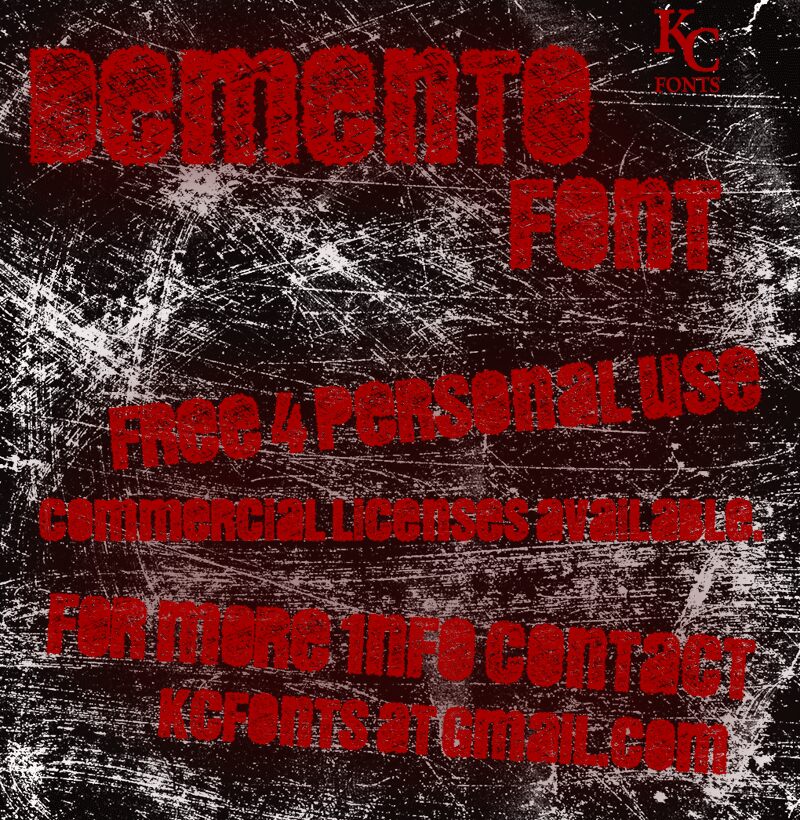
Demento by Kevin Christopher is a free eroded display font with tall, tightly packed letters and a frantic scratched surface. Ragged edges, uneven widths, and dense crosshatching give the forms the look of lettering hacked into a worn wall.
That abrasive texture can drive both horror posters and punk merchandise, linking cinematic menace with photocopied music graphics. It also suits game title cards and distressed packaging built around decay, damage, or urban grit. Horror is its clearest home.